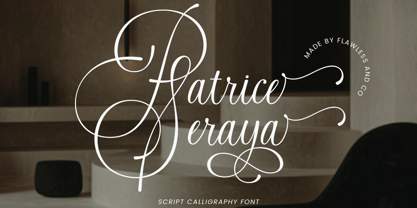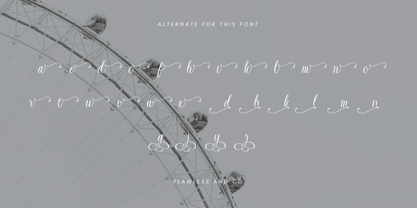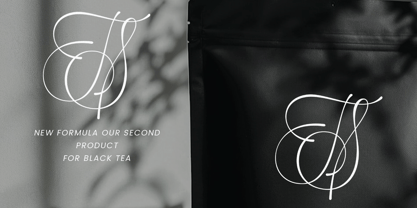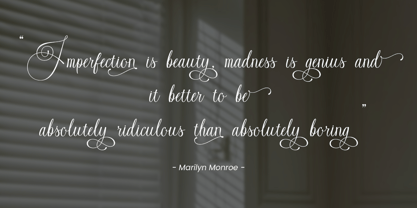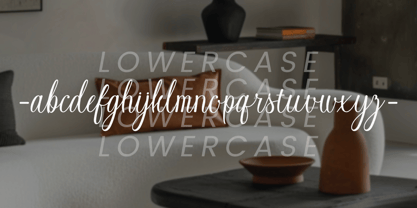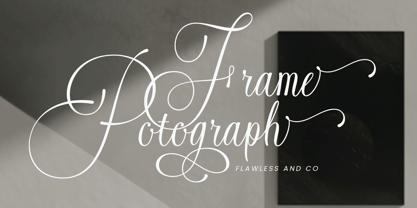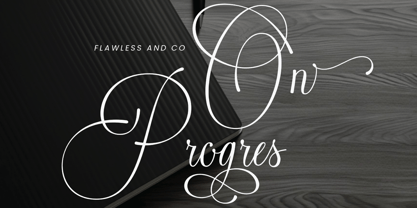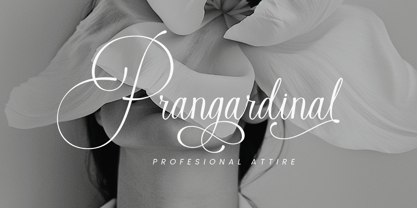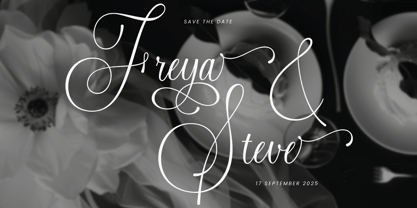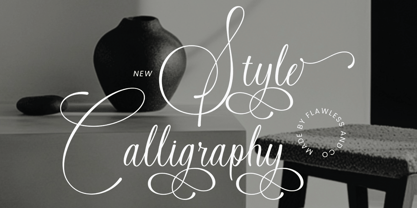
Patrice Seraya
by Flawlessandco
The Patrice Seraya Font Family was designed by Achmad Yani and published by Flawlessandco. Patrice Seraya contains 1 styles. More about this family
Introducing "Patrice Seraya," a beautifully crafted script calligraphy font that exudes elegance and sophistication. With its flowing curves and graceful letterforms, this font is perfect for adding a luxurious and refined touch to your designs. This font suitable for wedding invitations, logos, branding materials, event stationery, social media, greeting cards, etc.
There's some connected letters and some alternates that suitable for any graphic designs such as branding materials, t-shirt, print, business cards, logo, poster, t-shirt, photography, quotes .etc
This font support for some multilingual. Also contains uppercase A-Z and lowercase a-z, alternate character, numbers 0-9, and some punctuation.
Designers: Achmad Yani
Foundry: Flawlessandco